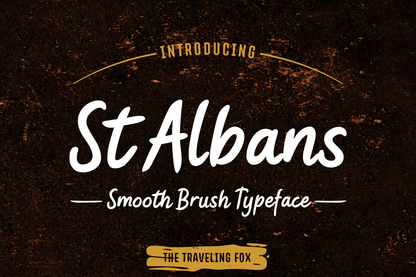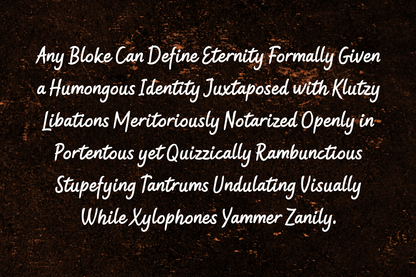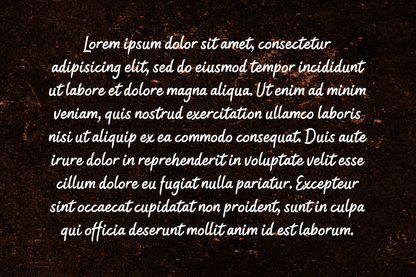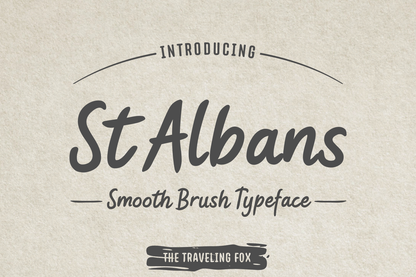
St Albans is a wonderful brush typeface, handmade with delicacy and care. Great for a large range of uses, St Albans has a heavy weight and presence of structure.
Its bold brush strokes and organic texture make it perfect for everything from poster designs and branding to product packaging and social media graphics. The font balances raw, handcrafted charm with refined control, giving your projects both personality and impact. With its strong visual presence and artisanal touch, St Albans is a font that leaves a lasting impression.